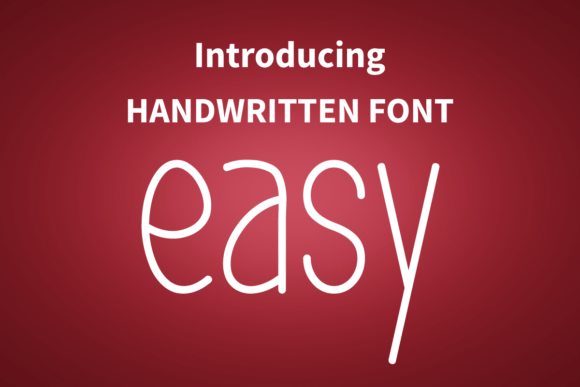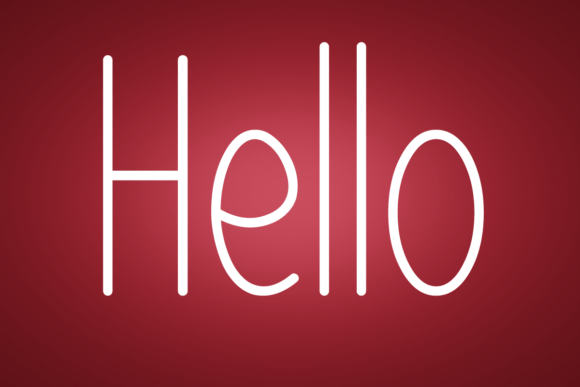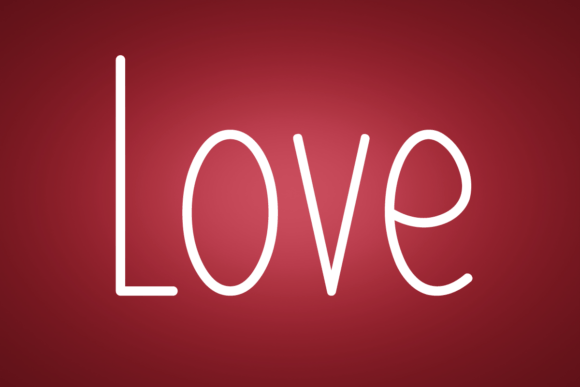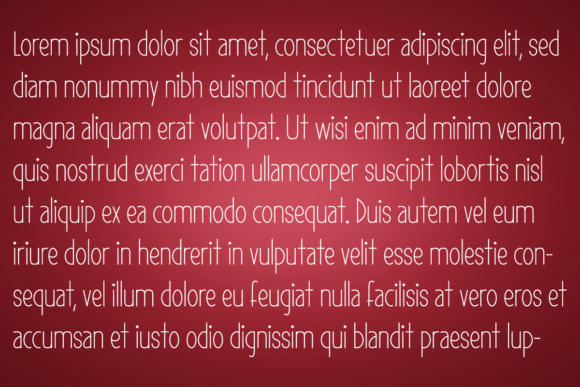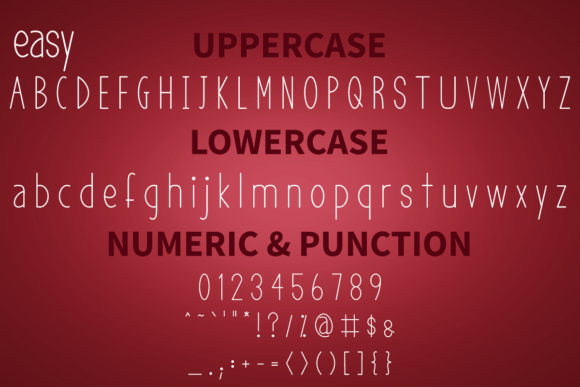
Easy Font
Add Whimsy and Charm with Easy Font
Easy Font is a simple and friendly handwritten typeface that adds a whimsical and slightly quirky touch to your designs. Its approachable and playful style makes it perfect for brightening up any creative project. Whether you are working on logos, wedding invitations, quotes, advertisements, or magazine layouts, Easy Font brings charm and personality.
Moreover, its clean and natural strokes create a warm and inviting feel, helping your work stand out confidently.
Versatile Uses for Easy Font
Easy Font is ideal for a variety of design applications, including:
• Logos and brand identities
• Wedding invitations and event stationery
• Quotes and inspirational designs
• Advertisements and marketing materials
• Print media such as magazines and brochures
• Social media posts and digital content
Thanks to its simple and friendly handwritten style, Easy Font adds both playfulness and professionalism to your projects.
It also features balanced kerning and well-spaced letters, ensuring your text remains readable and visually appealing across different sizes and formats.
Why Designers Choose Easy Font
Designers and creatives love EasyFont for its friendly and whimsical handwriting style. It adds a personal and approachable touch that makes any design lively and memorable. Whether you are a professional or a hobbyist, EasyFont helps your work shine with warmth and style.
Use EasyFont to bring lighthearted charm and simplicity to your next creative project.